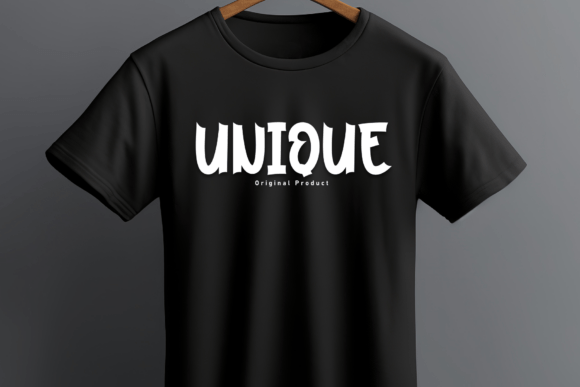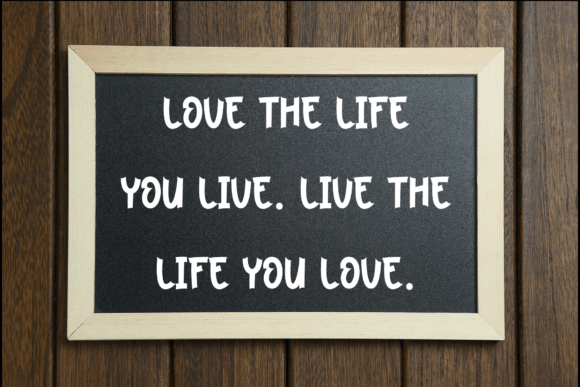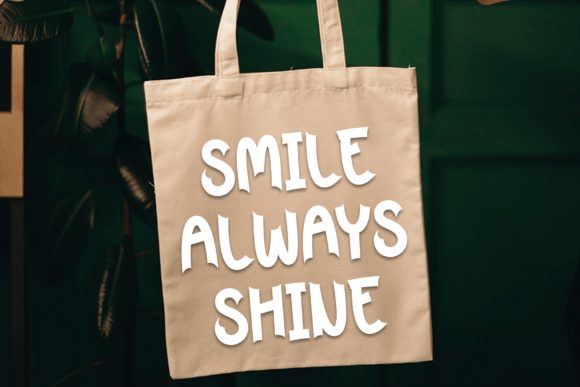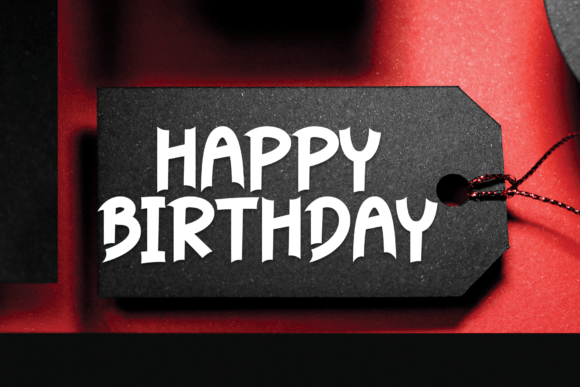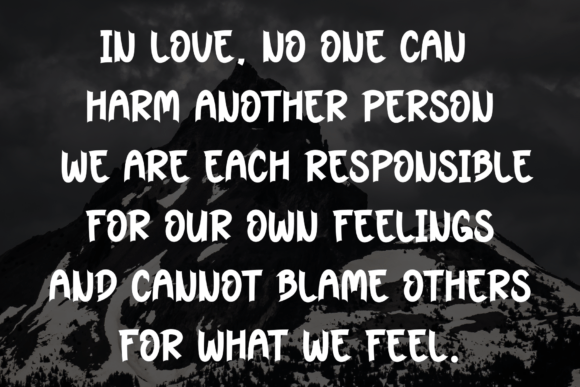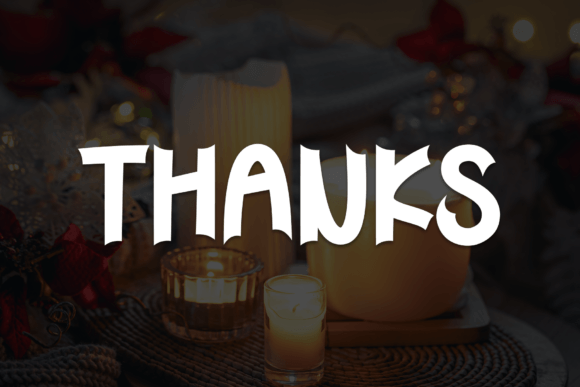
The Magic of Candles Christmas Font: A Designer’s Delight
- ✅ Unique and Natural Style: Candles Christmas boasts a unique, natural look that fits a wide range of design projects, from holiday cards to festive posters.
- ✅ Versatility: Its friendly and approachable vibe makes it suitable for various themes, not just Christmas! 🎉
- ✅ Easy on the Eyes: The font’s readability is top-notch, making it perfect for both headings and body text.
- ⚠️ Requires Attention to Spacing: Some users might find that the default spacing between letters could use a bit of tweaking for optimal readability.
- ⚠️ Limited Formal Use: Given its casual and festive nature, Candles Christmas might not be the best fit for very formal or corporate designs.
The Story Behind Candles Christmas
Candles Christmas was designed with the intention of capturing the warmth and joy of the holiday season. Its creator aimed to produce a font that felt both festive and approachable, perfect for a wide range of holiday projects. Whether it’s used for Christmas cards, decorations, or digital content, Candles Christmas brings a touch of holiday magic to any design.
Q: What makes Candles Christmas unique?
A: Candles Christmas stands out due to its sweet, friendly, and natural handwritten style, making it incredibly versatile for various design projects.
Q: Does Candles Christmas support OpenType features?
A: Yes, Candles Christmas supports OpenType features, including glyphs and stylistic alternates, which can be accessed in compatible design software.
Q: Is Candles Christmas suitable for body text?
A: While Candles Christmas is primarily designed for headings and titles, its readability makes it suitable for short paragraphs of body text as well.